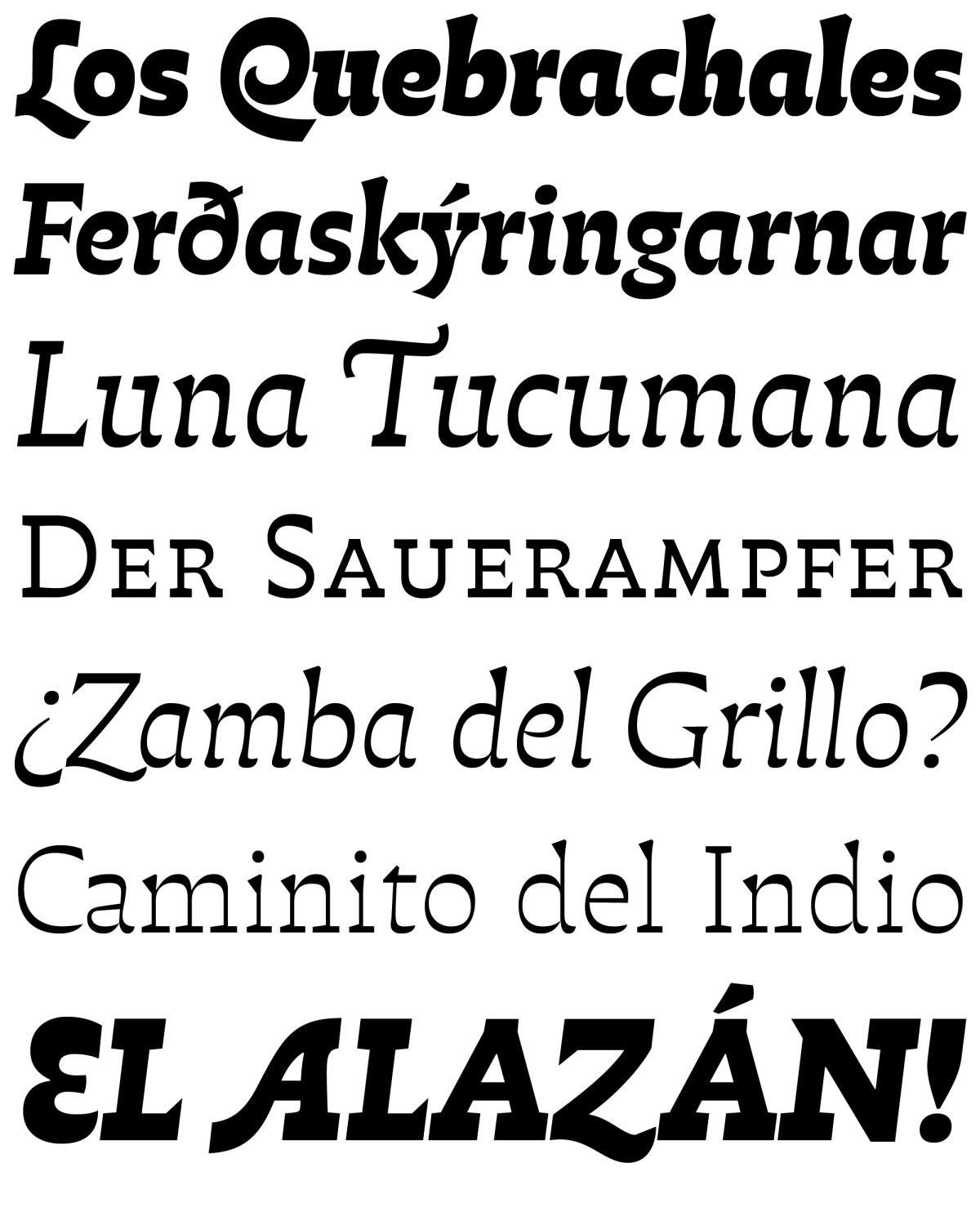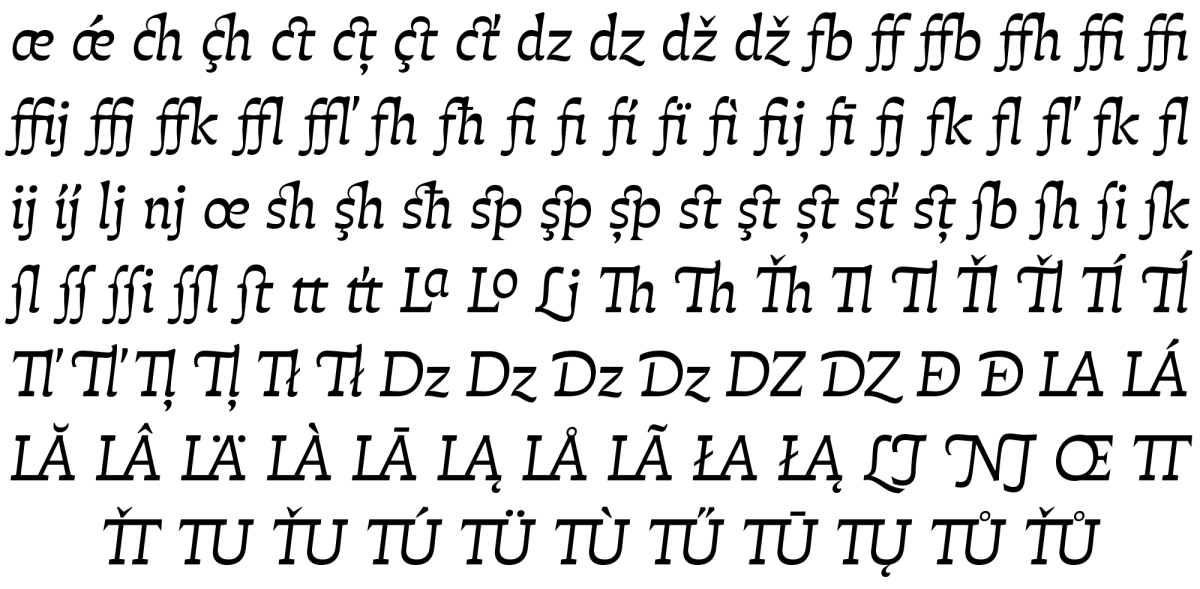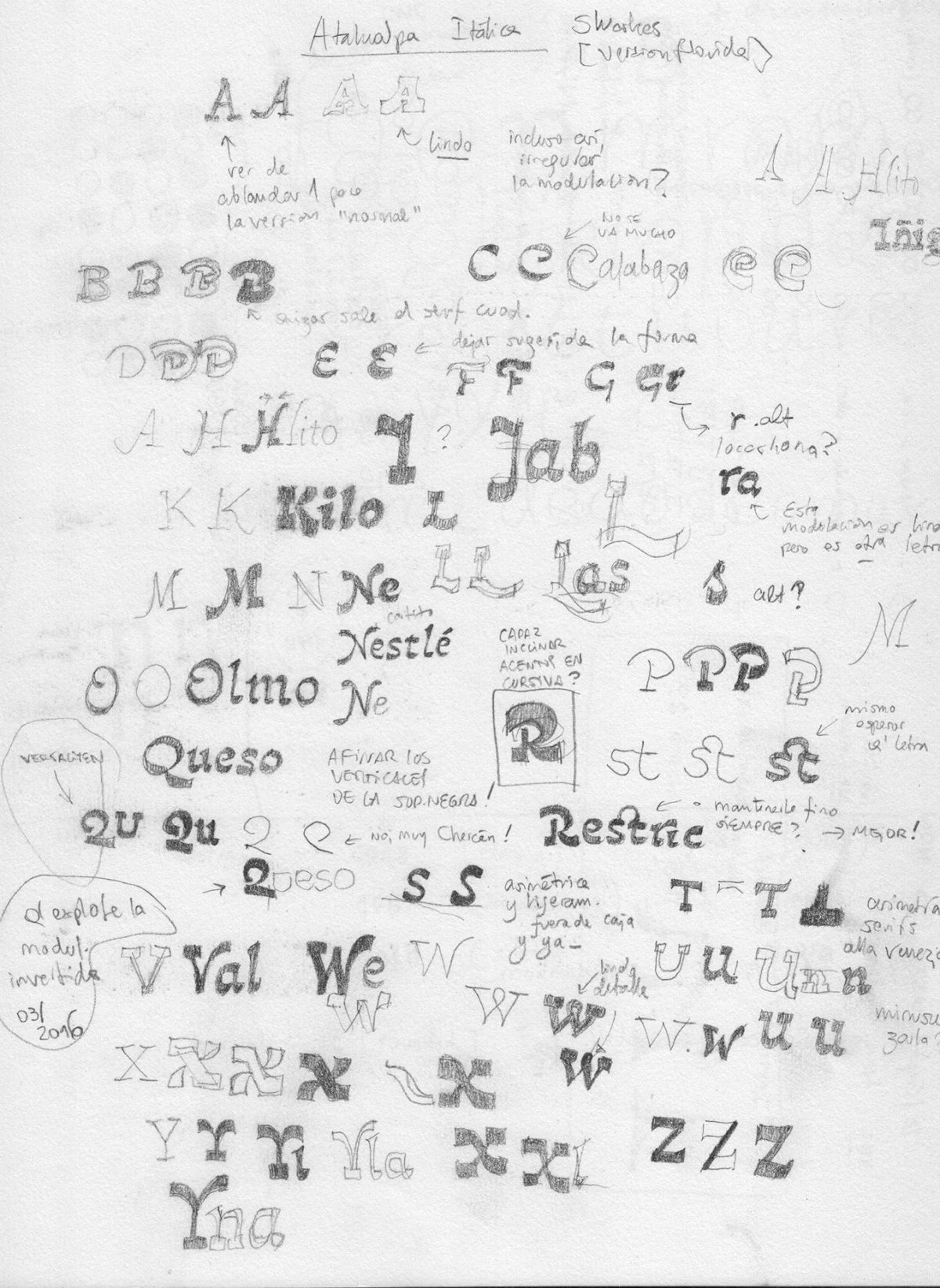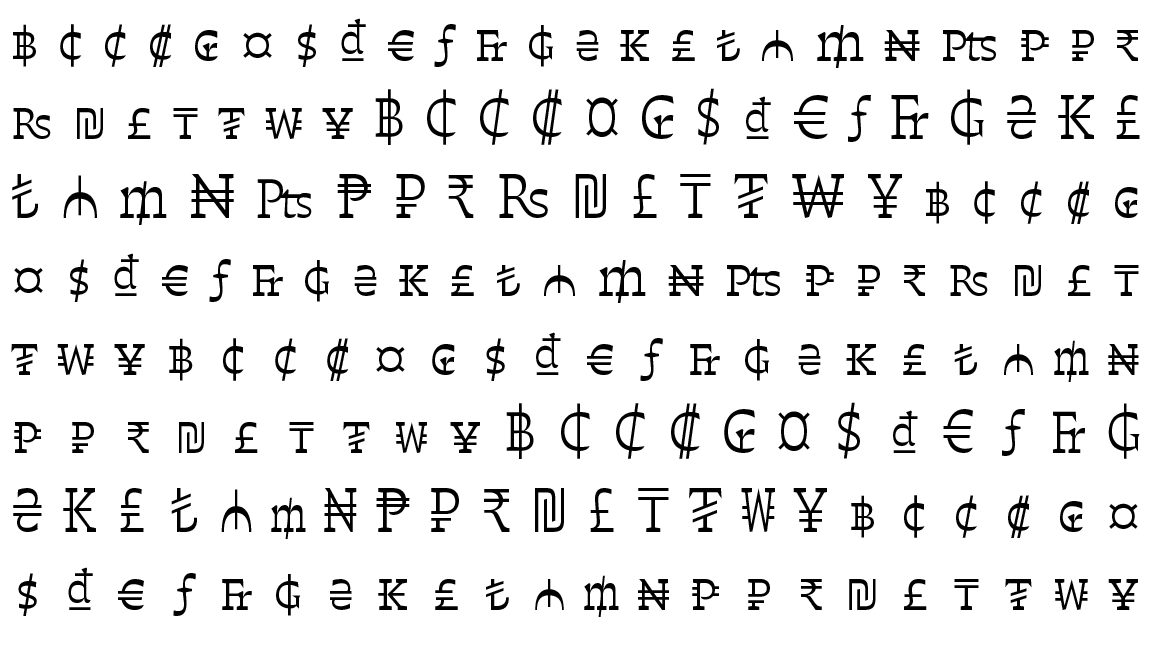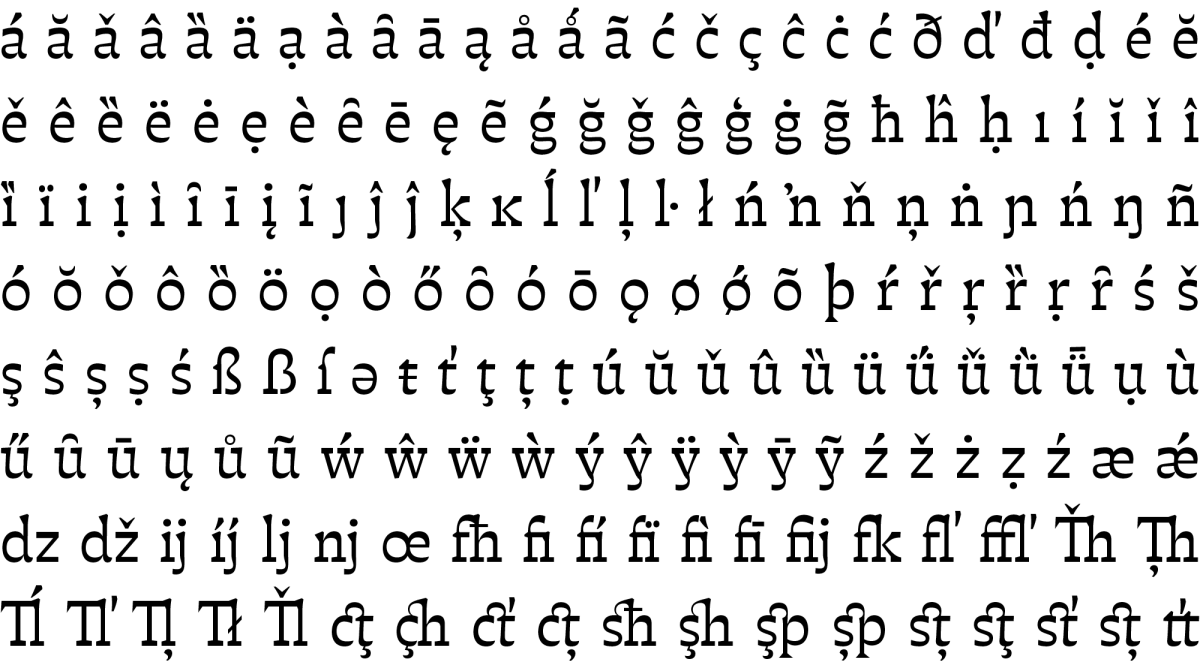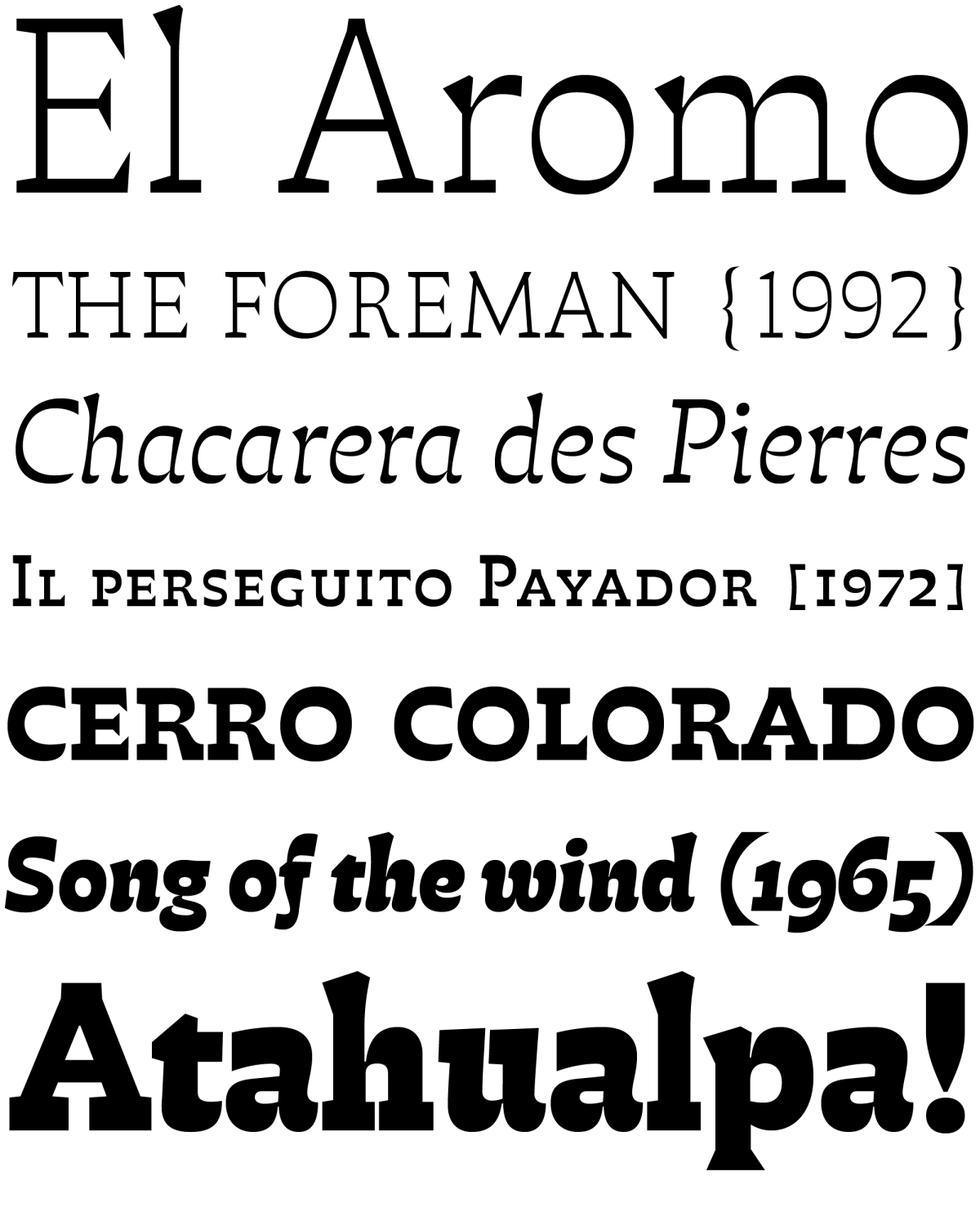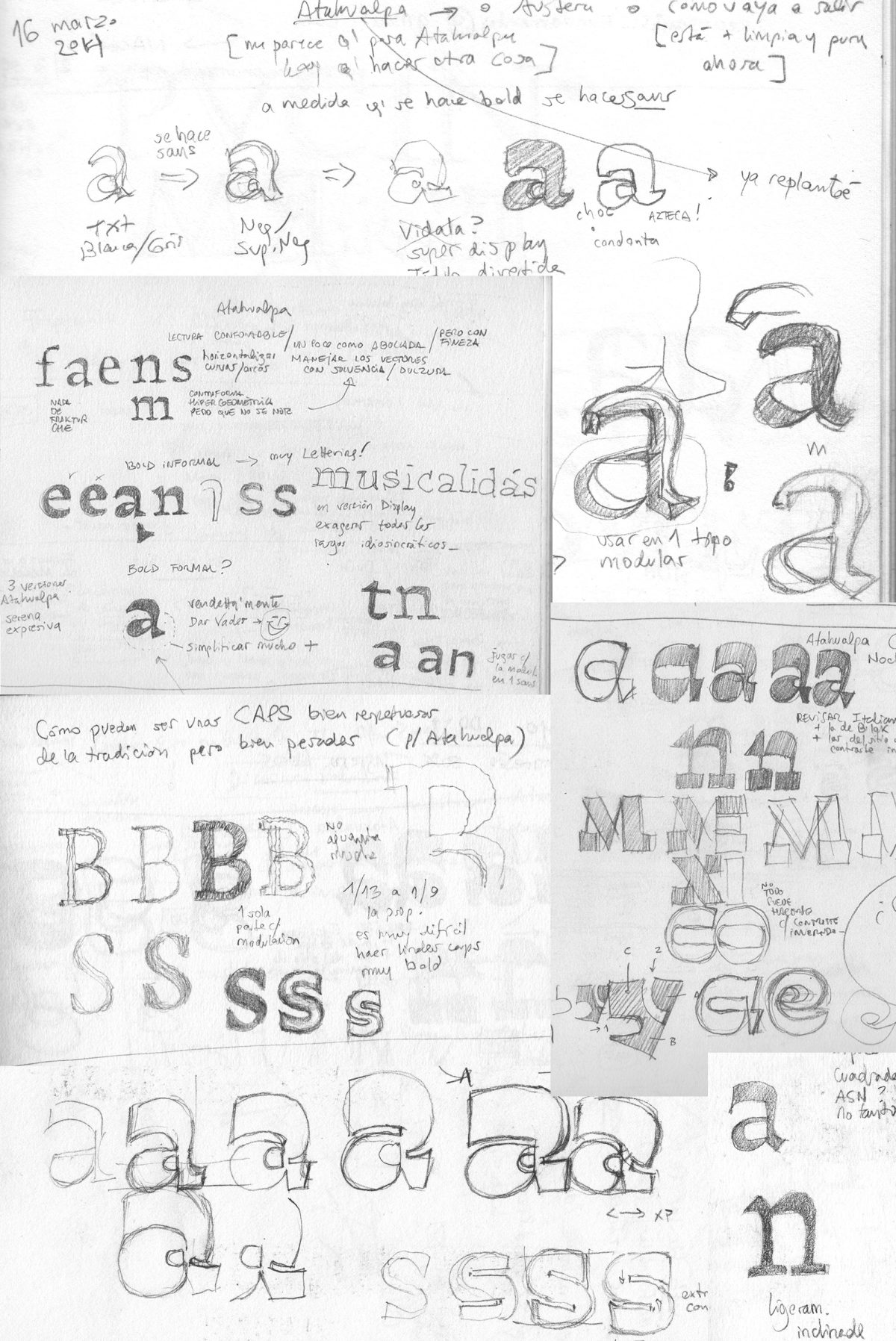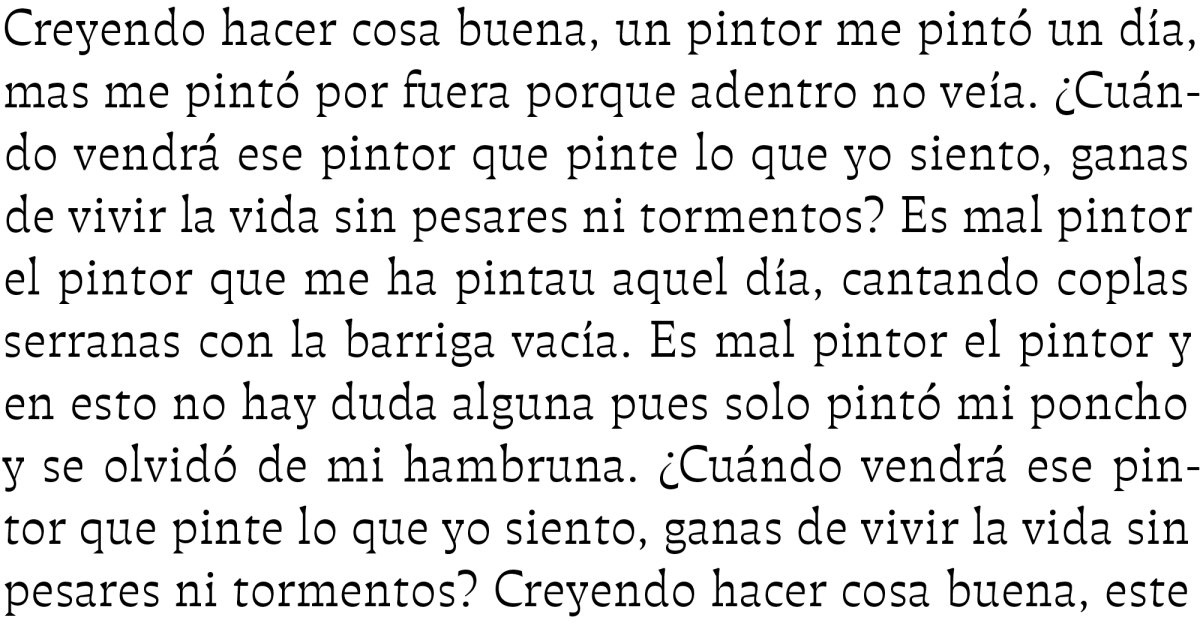
Atahualpa. Creating a singular voice in typeface design
This typeface is named after the astonishing guitar player and singer Atahualpa Yupanqui, a central figure to Argentine folk music. ‘Don Ata’, as he was called, was a wise poet with a particularly sensitive view of the elements of nature as well as of the human condition, all of which he turned into compelling lyrics and magic songs. For years I dreamed about designing a typeface in his name. I imagined a firm, rough voice, though interpreted with delicate curves and a feel of warmth. After a few years of occasional sketching finally a spirit aroused in 2014. The initially vague forms turned into precise letterforms and with time into a family of fonts. Now the type Atahualpa finally sees the light. I’m happy. Here I invite you to unveil all the secrets behind the scene, discover the clues of the inspiration and the design process, and enjoy some footnotes from our design kitchen.
The inspiration: Yupanqui, the wandering poet
Héctor Roberto Chavero (1908-1992) adopted the pseudonym ‘Atahualpa Yupanqui’ in early days. A strongly minded oppositor to dictatorships in his own time, and an ideological reference for generations of intellectuals and artists, he sang all over the world leaving an indelible mark of singularity and artistic vision. Most of the beloved lyrics he sang were written by pianist and songwriter Nenette Pepín, his partner in life for 48 years.
Atahualpa alternated between two preferred residences: An appartment in Paris and a peaceful small country house in Cerro Colorado, Córdoba, Argentina.
Here a few pencil sketches from my notebooks. In my case typefaces ideas evolve slowly on paper for years. Once the forms find their own logic then I start drawing all characters on screen. And then it gets faster. That’s why I miss [say] ‘final’ sketches of my typefaces. All the drawing process takes place on screen where shapes get sharp.
Going beyond reverse contrast
Yupanqui was a rebel spirit. Atahualpa is also an audacious design. On one hand I looked for a perfectly legible and versatile type, apt for many different contexts from immersive reading to display uses, from sturdy to delicate atmospheres. On the other hand I knew that a reverse contrast modulation by itself would make it a singular design. I wanted it to stand out in big sizes, making it attractive for identity and branding projects. But I also wanted it to be comfortably readable in long reading. The resulting design, Atahualpa, is a spirited reverse contrast slab serif that can also embrace flair, elegance, and expression. It is ideal for slightly informal settings, where a sense of precision and authority have to be maintained. Atahualpa is declined in 6 different weights from Blanca (thin) to SúperNegra (heavy), and it includes smallcaps, real cursives, italic swashes, all styles of figures, and more typographic goodies.
Caps of classic heritage
Lowercases are versatile, as readers we are used to recognize their many possible variations in style. Caps instead are conservative. You can’t go against their sense of history, they are solid geometry cincelled on stone thousands of years ago. Their strokes, subtly modulated, were carefully handwritten by skilled calligraphers following quintessential principles of harmony and rhythm. The best one can do, if the type is intended for text, is to respect that unwritten rule of dignity that all capitals expect from the type designer.
In order to gain as much dignity as possible, classic proportions were used in the capitals, trying to balance Roman epigraphic tradition with a ‘contemporary’ reverse modulation.
Curves are to be carefully polished. Even if letter strokes are no longer the result of the action of a brush, all the outlines in a letterform secretly relate to each other. Their quality conforms as much to each curve as to the spirit of the whole. Black and white interact like in a silent dance.
On the other hand creating the heavy weight companions means that most design principles of the lighter weights, while your priority was dignity or sobriety, must dramatically adapt to other assumptions such as impact and punch, all that without loosing a bit of credibility! I believe that quality in drawing plays a crucial role, as it helps you achieve the visual consistency necessary to inspire that credibility.
Heavy faces usually concede a sense of caricature. The sober dignity of the lighter weights gets replaced in the heavier ones by some sort of informal tone; a necessary concession if you aim at power and impact.
Minuscules: A firm voice with gentle manners
Having guaranted the capitals a stable, classic design, the task of designing the lowercases in a more liberated manner was great fun. The idea was to reach an audacious form, again in a firm voice, even with a certain asperity —a wink for the countryside spirit of folk music, though still using a delicate drawing.
Digital interpolation today lets you create as many weights as you want between the lightest and the boldest drawing masters. However human eyes find it difficult to recognize between weights that are too similar. Atahualpa includes a range of six weights from thin (Blanca) to heavy (SúperNegra), all clearly distinguishable from each other.
Atahualpa is the result of a slow process of ripening forms. Its lettershapes were designed bearing in mind all readability principles: Harmonious horizontal & vertical proportions, inner & outer spaces well interrelated, overall rhythm quality, color regularity of a text block; they build a text that is comfortable to read. However if you take the characters individually, I believe they propose new forms, distinctive & original. This idea of originality, not obtrusive at reading, is one of our foundry’s main objectives.
A disgression: The idea of ‘friendliness’ in American type
The type design contribution made by Latin America to the global concert is quite recent. Latin American hands are usually less attached to European traditions, just as it was also the case of North American designers through the early 20th century — you know the biggest names: Morris Fuller Benton, Frederic W. Goudy, William Addison Dwiggins… However it was only since the access to personal computers that Latin American type designers could contribute their views to the world. Since then words like ‘friendly’, ‘relaxed’, ‘spicy’, ‘informal’ are commonly associated to the type work made by some Latin Americans — an interesting subject to be treated later. However we at PampaType believe that in regards of type, just as in life, ‘friendliness’ is to be taken seriously.
There are different sorts of ‘friendly’ tones. Even in a context of early contribution to type design, Goudy and Dwiggins were clearly aware of a sense of friendliness. In Dwiggins’ work it is more visible, while in Goudy’s work is more subtle, however in both designers originality prevails to tradition, at least in the eyes of the European taste of the époque.
Frederic Goudy got a style of his own. It may look traditional to nowadays’ eyes but it actually has a strong personal imprint, in my view not far from a ‘handmande’ spirit, thus a special sort of friendliness. Here sample letters of his Goudy Old Style [1915], and below his incredibly modern Goudy Sans [1929].
A good sample of unprejudiced work by WAD is the famous Plimpton initials series: Here his free interpretation of a fraktur style; in second line are the flowers initials; and below his crazy ‘stencils collage’ alphabet. WAD always had a fresh, sometimes childish approach to work. That makes him an exceptionally original artist within the book and advertising industries.
That American feeling of friendliness in type reached a peak in the ninetheen seventies with the New York Pop wave. Designers such as Ed Benguiat, Herb Lubalin, Tony da Spigna, and colleagues. Not only new fonts were created under this (say) sex, drugs, rock & roll paradigm, but also audacious, fresh interpretations of European classics. Some of these are dignified designs, like the very American Caslon 224 by Ed Benguiat [1982], some other are unfortunate, like the Garamond version of Tony Stan [1975], though all of them are full of character!
Tiffany [1974] by Ed Benguiat, a sort of naive pairing of Baroque with Venetian. Below: The Garamond by Tony Stan [ITC, 1975] after the MT version [the mistaken Jean Jannon’s].
The beautifully simple logo for the Cooper Union school by Herb Lubalin. Indeed a brilliant way to show how to use his Avant Garde type.
Singularity and warmth
Reaching the correct atmosphere in text, hitting the right balance of dinamism and serenity, in a way that legibility be optimum and reading effortless, though letterforms’ anatomy is not compromised in its artistic and technical dimension, is quite a big challenge. Such aim requires a significant effort in constant fine tuning and considerable amount of time for maturing the shapes and taming the rhythm they build.
Extract from El Pintor by Atahualpa Yupanqui. Set in Atahualpa Gris 88/108 pt.
Polished curves make lettershapes visually persuasive.
I’ve tried to give Atahualpa a singular voice. I think it somehow expresses the slow process that I followed these years trying to reach typefaces whose voices show a pairing between authority and gentleness. Atahualpa’s reverse modulation, and its concentration of weight in horizontal strokes, gives it a robust slab serif appearance, which is more visible in the heavier versions. This robustness does not however impede Atahualpa to go out and flirt with other styles, and wear details usually not found in the corner of square serifs.
Linearity vs. Optical scale
The serial aspect of nowadays’ digital typeface design is very helpful (for instance it lets you easily generate mathematically interrelated weights), but it does not warrants versatility, that is the quality of adapting to different contexts of use. We found that in digital environment a criterion of linearity was desirable. That is oposed to the traditional criterion of optical scale, meaning a particular design for each body size, as it was practized all across the metal era. Following common sense, the extreme weights (the lightest and the heaviest one) should always be used only in display contexts, where details show off, and never in texts of long reading where legibility (instead of elegance) is the priority. However in the design of Atahualpa (as well as of Amster) we worked with this criterion of linearity, meaning that letterforms behave as best as possible in the widest possible range of sizes. In other words, the same design must look very elegant in big sizes as well as read very legible in immersive text.
ITC Bodoni [SeventyTwo, Twelve, Six], revival project directed by Sumner Stone and published by URW in 1994. The practice of optical scaling is part of the traditional approach in type design.
In Atahualpa the same design concept behaves finely throughout the whole range of sizes. Naturally better use the lightest weight [Blanca] and the heaviest [SúperNegra] only at display sizes.
Complete figures
In order to address all typographic needs of the demanding designer, Atahualpa wears all sorts of figures: oldstyle, lining, and smallcap, in both proportional and tabular fits; as well as the extensive math set.
From the beginning the idea was to get a flowing cursive companion to the roman. A nice, challenging task within a slab serif style.
Discrete, flowing cursives
Real cursives create a natural companion to roman in both text and display environments. I hope the flowing nature of Atahualpa’s cursives add to the overall warmth of the family. However I also wanted them to match the discretion expected in a square serif design.
Alternates. Ligatures. Swashes
Alternate glyphs not only offer more diversity in text, they can also help at making a word or a logo look more beautiful, by offering just the right choice for a specific situation. Here below some alternate glyphs from Atahualpa.
Ligatures always play a significant role in how a text looks. Here some ligatures and accentuated ligatures of one single weight.
May a slab serif type wear swashes in its cursives? Why not.
Extensive Latin coverage
At PampaType we believe in inclusion, so our current Latin extended charset covers over 200 languages within the Latin alphabet. We decided to drop the usual ‘Pro vs. Std’ binomial and set a new high standard for all of our new typefaces.
All our recent types wear the Latin Extended set: Amster, Berenjena, Chercán, Margarita, and now Atahualpa. The rest of our type library is currently being extended.
An inclusive character repertoire would not be complete without extensive money signs too. Atahualpa (and all our Latin extended types) include these money signs, developed in oldstyle, lining, or small cap form (depending on its design), in both tabular & proportional fit.
Dingbats
As usual in our fonts, Atahualpa also includes arrows and some theme icons.